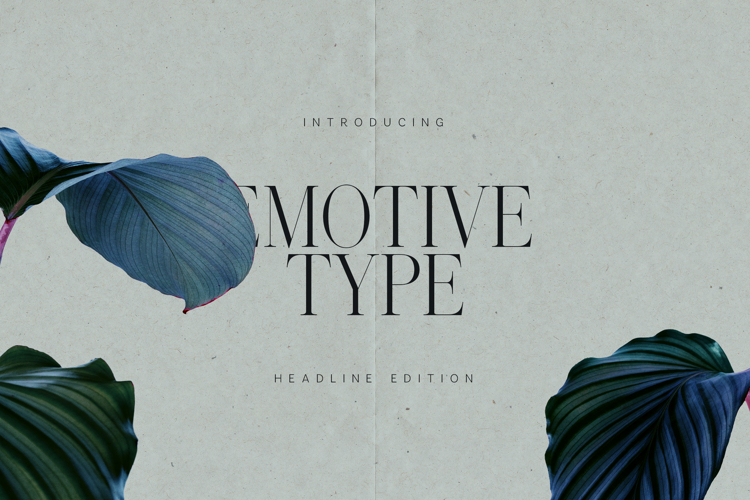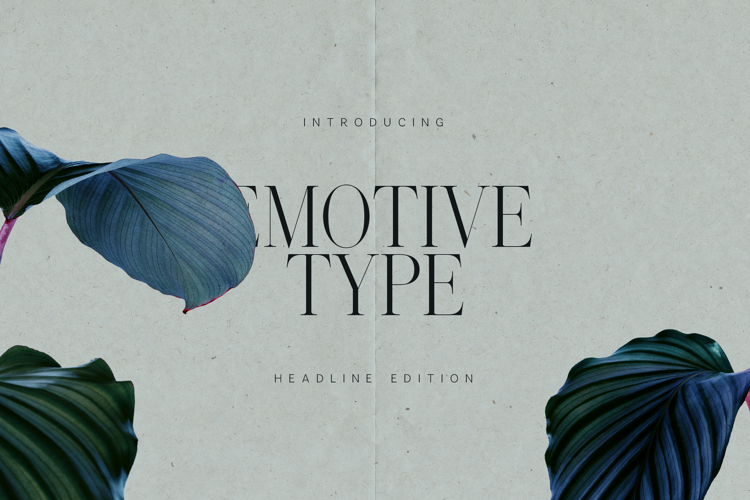
Emotive Type Headline Edition
Emotive Type is an elegant modern serif typeface crafted for expressive headlines and refined visual storytelling. Featuring tall proportions, high contrast strokes, and delicately sculpted serifs, this font blends contemporary minimalism with a poetic, editorial sensibility.
Designed to feel calm yet confident, Emotive Type shines in fashion editorials, luxury branding, magazines, art books, posters, and sophisticated digital layouts. Its graceful curves and balanced spacing create a soft rhythm that allows typography to speak quietly but with intention.
The typeface includes uppercase and lowercase characters, numerals, punctuation, and extensive multilingual support, making it suitable for global creative projects. Delivered in .otf font files, Emotive Type works seamlessly across all major design software.
Emotive Type is built for designers who value atmosphere, nuance, and timeless elegance—where emotion is embedded in every letterform.